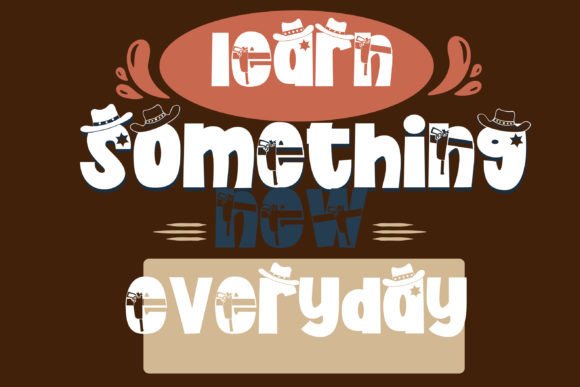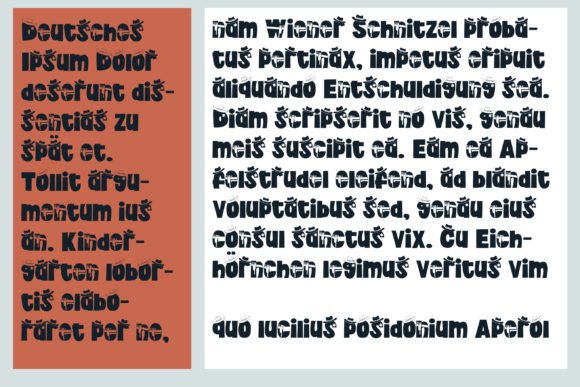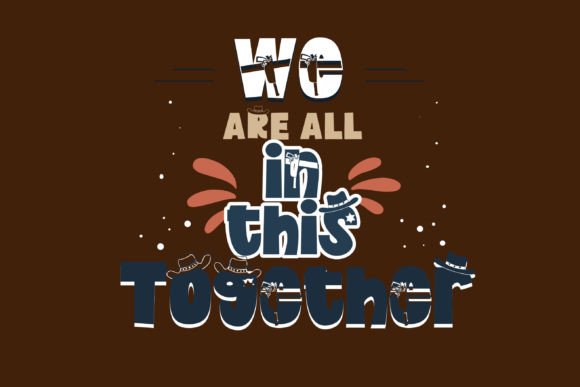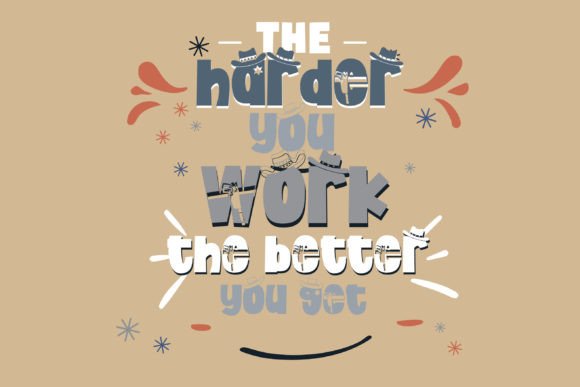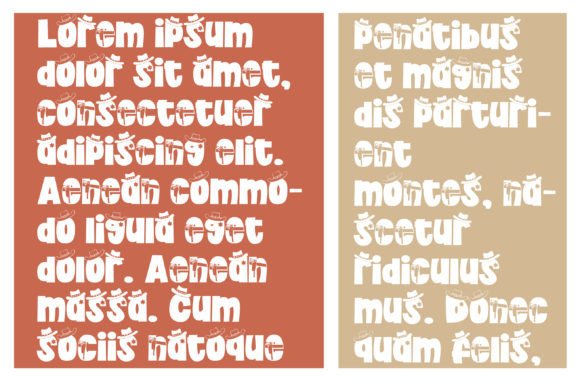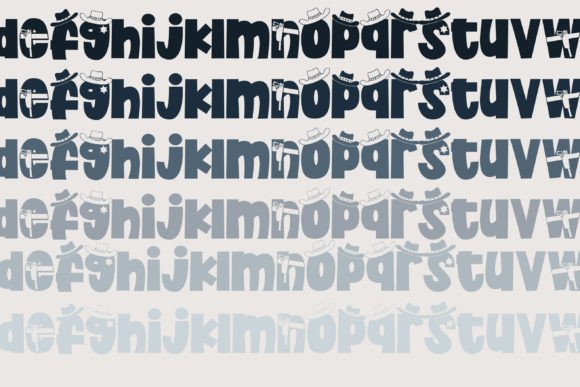
Unleash Your Creativity with Big Bad Guns Font
Are you a designer, crafter, or DIY enthusiast looking for a unique and versatile font to elevate your creative projects? Look no further than Big Bad Guns Font! This incredibly unique display font is masterfully designed to become a true favorite among creative professionals and hobbyists alike. With Big Bad Guns, you can bring each of your creative ideas to the highest level and make a lasting impression on your audience.
The Power of Typography: Why Big Bad Guns Font Stands Out
Typography plays a crucial role in any design project, as it can make or break the overall aesthetic and impact of your work. A well-designed font can add personality, style, and sophistication to your project, while a poorly chosen font can detract from its overall appeal. Big Bad Guns Font is a game-changer in the world of typography, offering a distinctive and eye-catching design that’s sure to turn heads.
What Makes Big Bad Guns Font So Unique?
So, what sets Big Bad Guns Font apart from other fonts on the market? Here are just a few of its standout features:
- Bold and Edgy Design: Big Bad Guns Font boasts a bold and edgy design that’s perfect for making a statement. Its rugged, industrial look is ideal for projects that require a strong and confident aesthetic.
- Highly Versatile: Whether you’re working on a logo, poster, or social media graphic, Big Bad Guns Font is incredibly versatile and can be used in a wide range of design applications.
- Easy to Read: Despite its bold and edgy design, Big Bad Guns Font is surprisingly easy to read, making it perfect for headlines, titles, and other display text.
- Unique Character Set: Big Bad Guns Font comes with a unique character set that includes uppercase and lowercase letters, numbers, and punctuation marks, giving you plenty of creative options.
How to Use Big Bad Guns Font in Your Design Projects
Ready to unleash your creativity with Big Bad Guns Font? Here are some ideas for incorporating this amazing font into your design projects:
- Logos and Branding: Use Big Bad Guns Font to create a bold and memorable logo that sets your brand apart from the competition.
- Posters and Flyers: Add some edge to your posters and flyers with Big Bad Guns Font, perfect for promoting events, products, or services.
- Social Media Graphics: Take your social media graphics to the next level with Big Bad Guns Font, ideal for creating eye-catching Facebook posts, Instagram stories, and more.
- Crafting and DIY Projects: Big Bad Guns Font is also perfect for crafters and DIY enthusiasts who want to add a personal touch to their projects, such as handmade cards, gift tags, and more.
Tips and Tricks for Getting the Most Out of Big Bad Guns Font
To get the most out of Big Bad Guns Font, here are some tips and tricks to keep in mind:
- Experiment with Different Colors: Big Bad Guns Font looks amazing in a variety of colors, so don’t be afraid to experiment and find the perfect hue for your project.
- Play with Font Sizes: Big Bad Guns Font can be used at a range of font sizes, from small and subtle to large and bold.
- Combine with Other Fonts: Big Bad Guns Font pairs well with a variety of other fonts, so feel free to get creative and experiment with different font combinations.
In conclusion, Big Bad Guns Font is an incredibly unique and versatile display font that’s perfect for designers, crafters, and DIY enthusiasts alike. With its bold and edgy design, highly versatile nature, and easy readability, this font is sure to become a favorite among creative professionals and hobbyists. So why wait? Unleash your creativity with Big Bad Guns Font today and take your design projects to the next level!